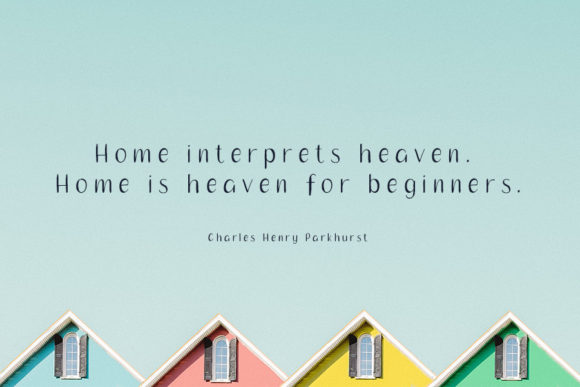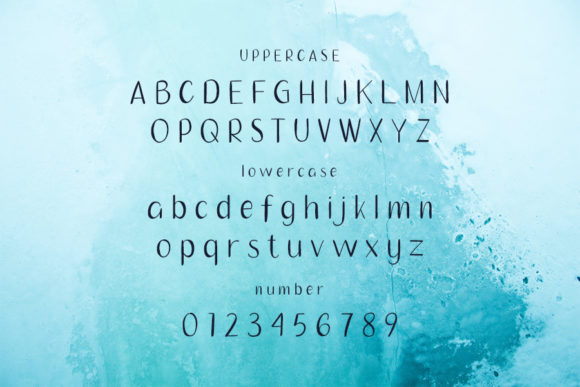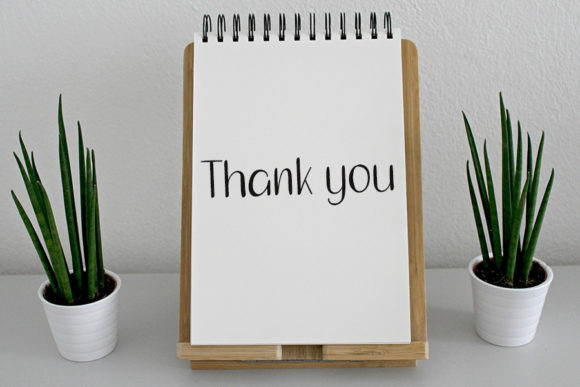
DreamHome Font: The Perfect Handwritten Font for Your Design Projects
Are you a designer or crafter looking for a simple and neat handwritten font to elevate your design projects? Look no further than DreamHome Font! This beautiful font is perfect for a wide range of applications, from wedding invitations and greetings cards to t-shirts and more.
What Makes DreamHome Font So Special?
DreamHome Font is a handwritten font that boasts a unique combination of simplicity and elegance. Its characters are carefully crafted to be adaptable and well-balanced, making it easy to use in a variety of design projects. Whether you’re creating a romantic wedding invitation or a fun t-shirt design, DreamHome Font is sure to impress.
Key Features of DreamHome Font
- Simple and Neat: DreamHome Font features a clean and simple design that is easy to read and looks great in a variety of contexts.
- Adaptable Characters: The font’s characters are designed to be adaptable and well-balanced, making it easy to use in a wide range of design projects.
- Handwritten Style: DreamHome Font has a beautiful handwritten style that adds a personal touch to any design project.
- Versatile: This font is perfect for a wide range of applications, including wedding invitations, greetings cards, t-shirts, and more.
Why Choose DreamHome Font?
There are many reasons why designers and crafters choose DreamHome Font for their projects. Here are just a few:
- Ease of Use: DreamHome Font is easy to use and can be easily integrated into a variety of design projects.
- High-Quality Design: The font features a high-quality design that looks great in a variety of contexts.
- Unique Style: DreamHome Font has a unique handwritten style that sets it apart from other fonts.
How to Use DreamHome Font in Your Design Projects
Using DreamHome Font in your design projects is easy! Here are a few tips to get you started:
- Pair it with Other Fonts: DreamHome Font pairs well with other fonts, making it easy to create a unique and visually appealing design.
- Experiment with Colors: The font looks great in a variety of colors, so don’t be afraid to experiment and find the perfect color for your design.
- Use it for Headings and Body Text: DreamHome Font is perfect for both headings and body text, making it a versatile addition to any design project.
Perfect for Wedding Invitations and More
DreamHome Font is perfect for wedding invitations, greetings cards, and other special occasions. Its elegant and sophisticated design makes it ideal for formal events, while its playful and whimsical style makes it perfect for more casual designs.
Here are just a few ideas for using DreamHome Font in your design projects:
- Wedding Invitations: Use DreamHome Font to create beautiful and elegant wedding invitations that set the tone for your special day.
- Greetings Cards: Create personalized greetings cards for birthdays, holidays, and other special occasions using DreamHome Font.
- T-Shirts and Apparel: Use DreamHome Font to create fun and stylish t-shirts and apparel that make a statement.
DreamHome Font is a beautiful and versatile handwritten font that is perfect for a wide range of design projects. Its simple and neat design, adaptable characters, and elegant style make it a great choice for designers and crafters who need a high-quality font. Whether you’re creating wedding invitations, greetings cards, t-shirts, or more, DreamHome Font is sure to impress. So why wait? Add DreamHome Font to your font library today and start creating stunning designs!